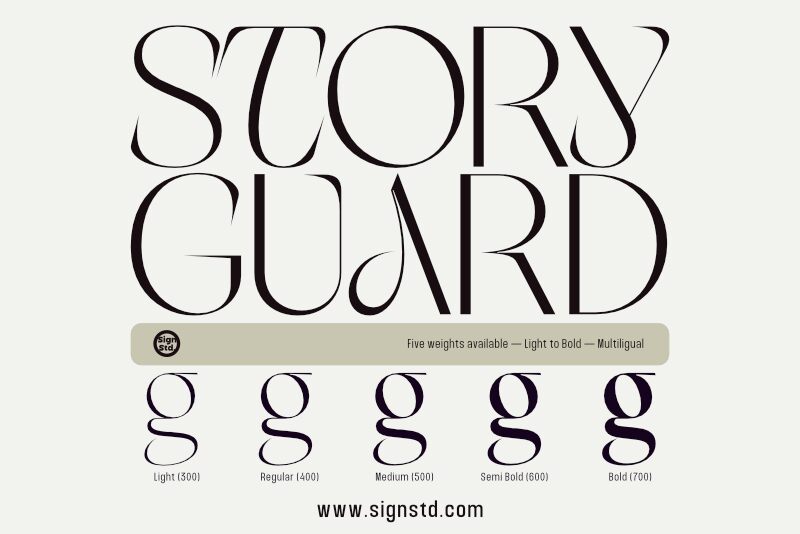
Story Guard is a free fancy font designed by Sign Studio. This typeface is a display font with artistic and refined details which have a distinct high-fashion appeal. This font is elegant and modern with a contemporary style ideal for graphic designs.
Story Guard font is best suited for luxury branding projects for perfume and cosmetic brands or fashion houses. Its thin strokes look stylish on magazine covers, book covers, posters, and other editorial designs. The font will also look good on websites for luxury companies when applied to headings, and also on social media platforms.